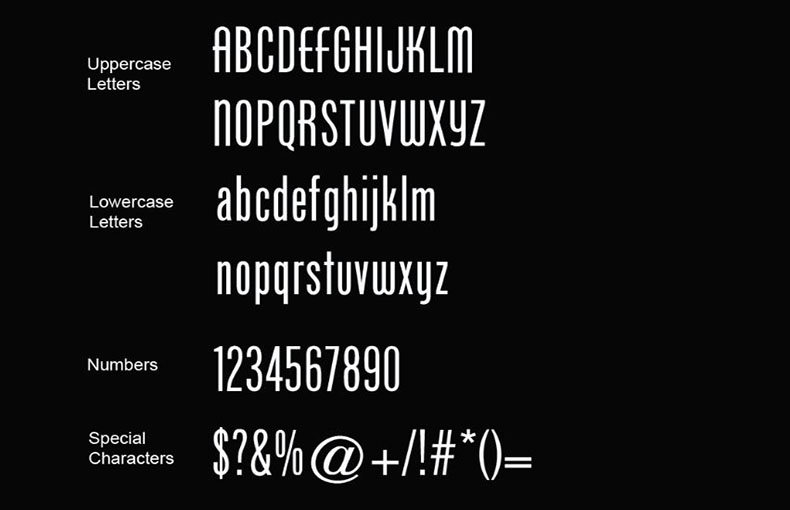
Logo, Display, Sans Serif
Introducing Got Milk Font! It is an American advertising campaign on television and YouTube encouraging the consumption of milk and dairy products.
The main purpose of creating this feed is to encourage communities to consume more cow’s milk. And now, it’s one of the most successful advertising campaigns of the last twenty years.
The font used for the Got Milk logo is actually The Phenix American sans serif font. Monotype Corporation took over after its first release in 2001.
Also designed by Morris Fuller Benton. This sans-serif font family has been designed to look sharp, modern, and technical while maintaining a unique personality.
Phenix American sans serif comes in only a single regular style that contains 218 unique glyphs. Moreover, it also supports 63 multilingual languages.
This font supports 63 languages.
The font used for the Got Milk logo is actually The Phenix American sans serif font. Monotype Corporation took over after its first release in 2001.